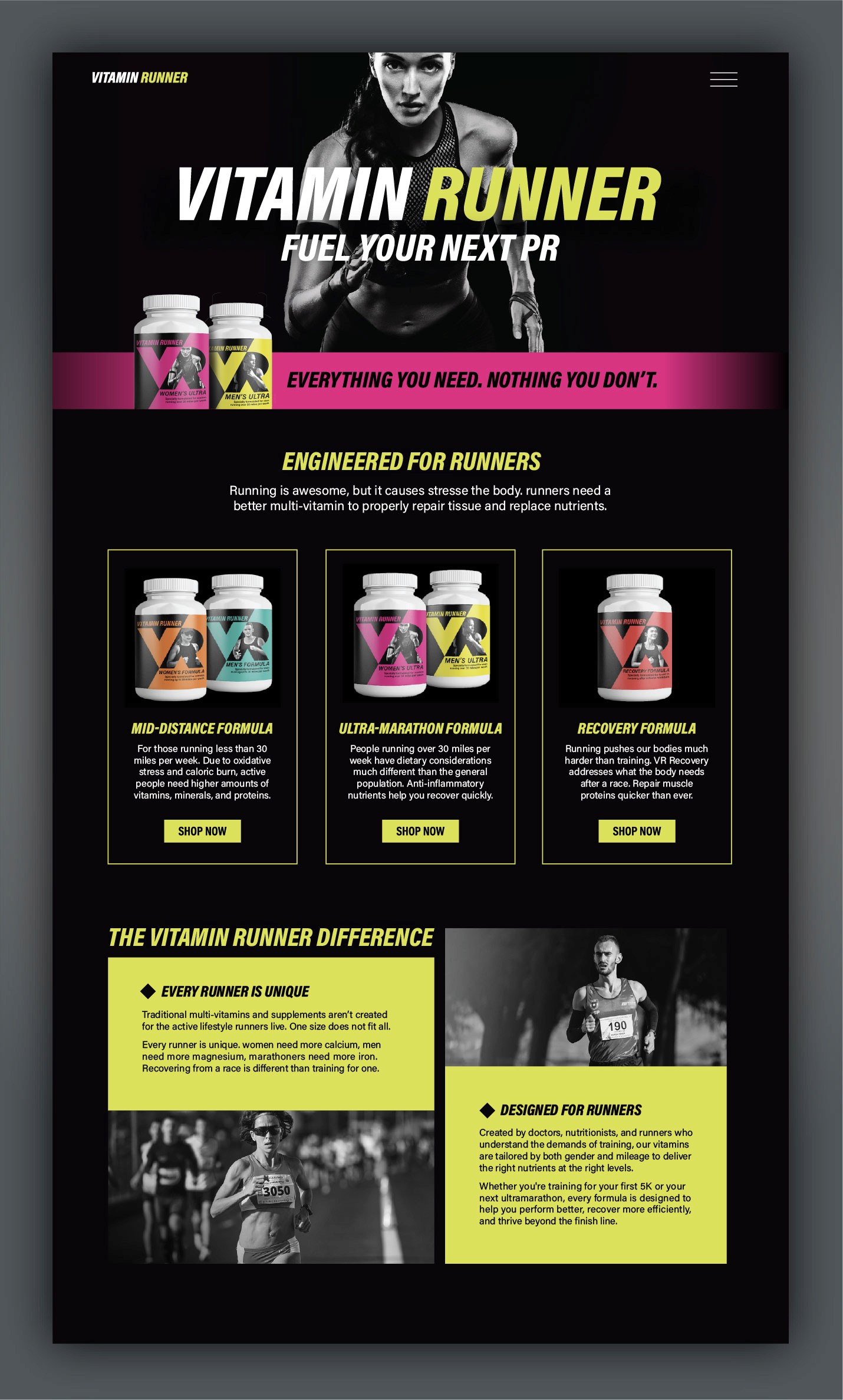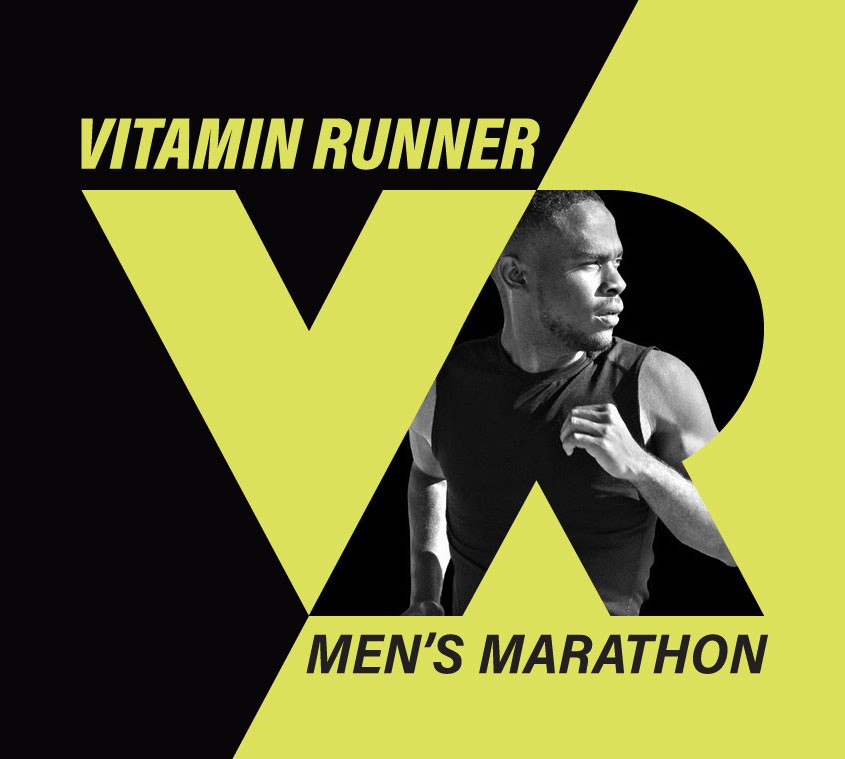
Vitamin Runner
The running supplement market is brutally crowded, and most brands in it look interchangeable — same colors, same stock-photo athletes, same vague promises. Worse, most supplements pile on filler ingredients while skipping what active people actually need, like iron and calcium. Vitamin Runner solved the product problem with formulas tailored by gender and mileage instead of one-size-fits-all. The brand had to look like it solved that problem before a single word of copy explained it.
I built every piece of the brand — packaging, web, social, even printed race-day pieces — to look more serious and more put-together than typical supplement marketing: sharper type, harder contrast, none of the soft wellness-brand cues the category leans on. The copy followed the same instinct. "Fuel your next PR" isn't generic encouragement; it's speaking directly to a number a runner is actually chasing. It worked: the brand sold 10,000 bottles in its first month.